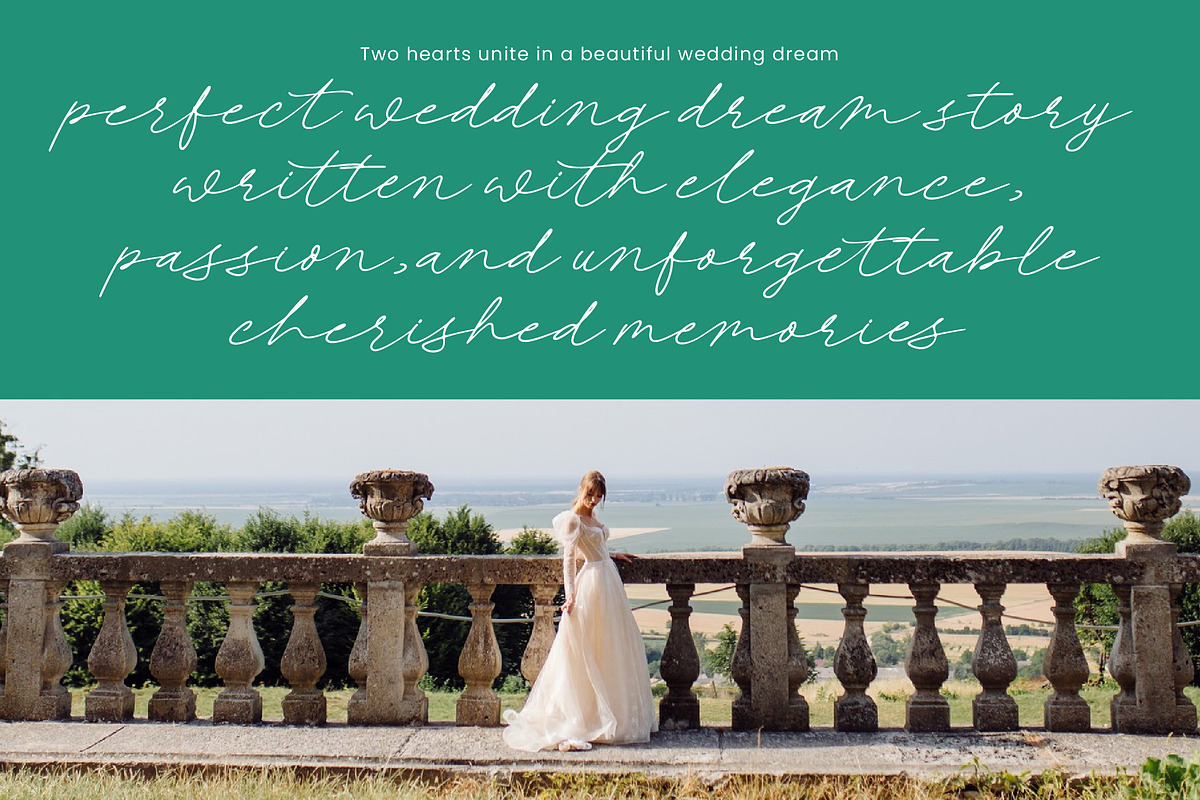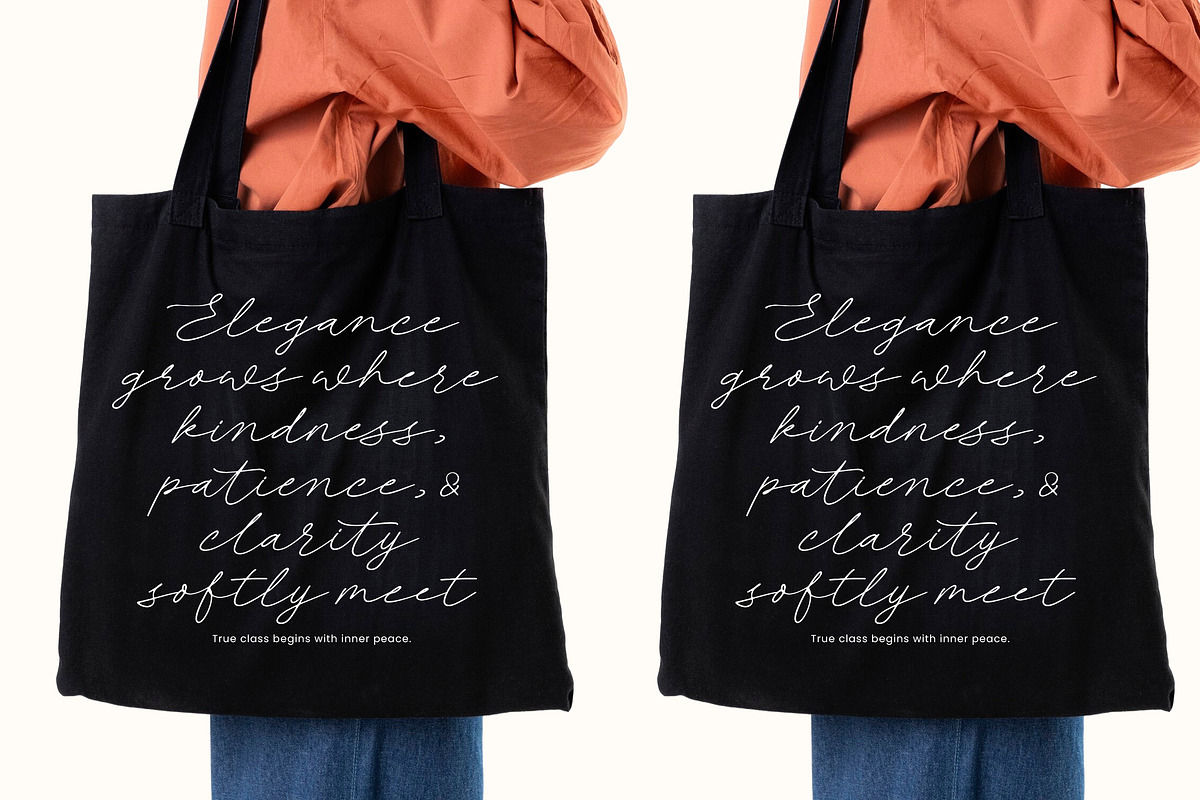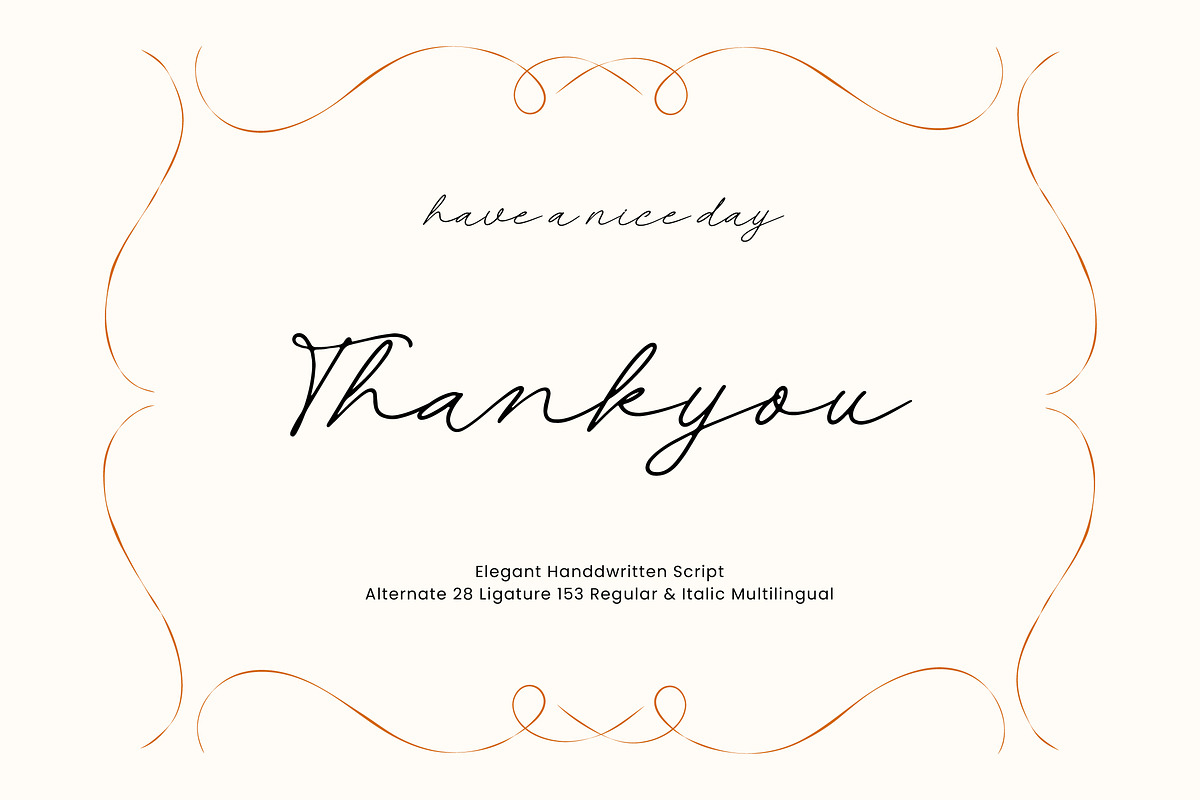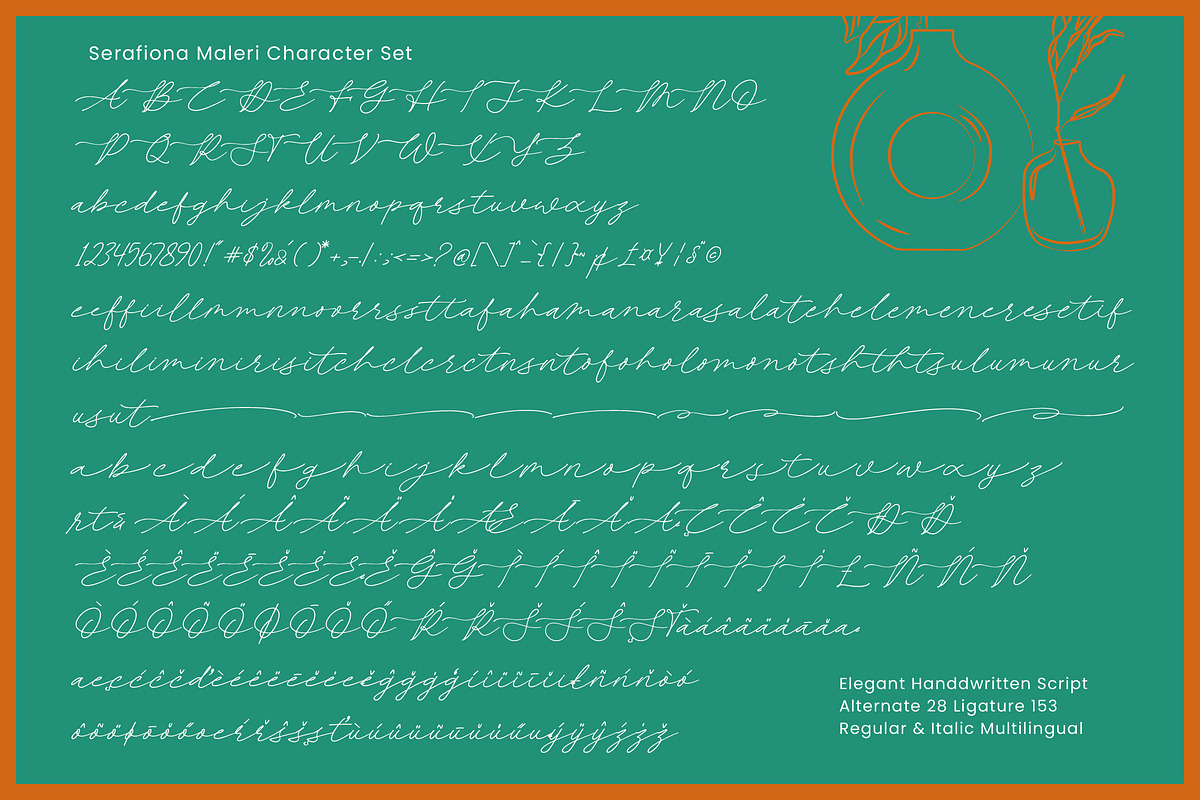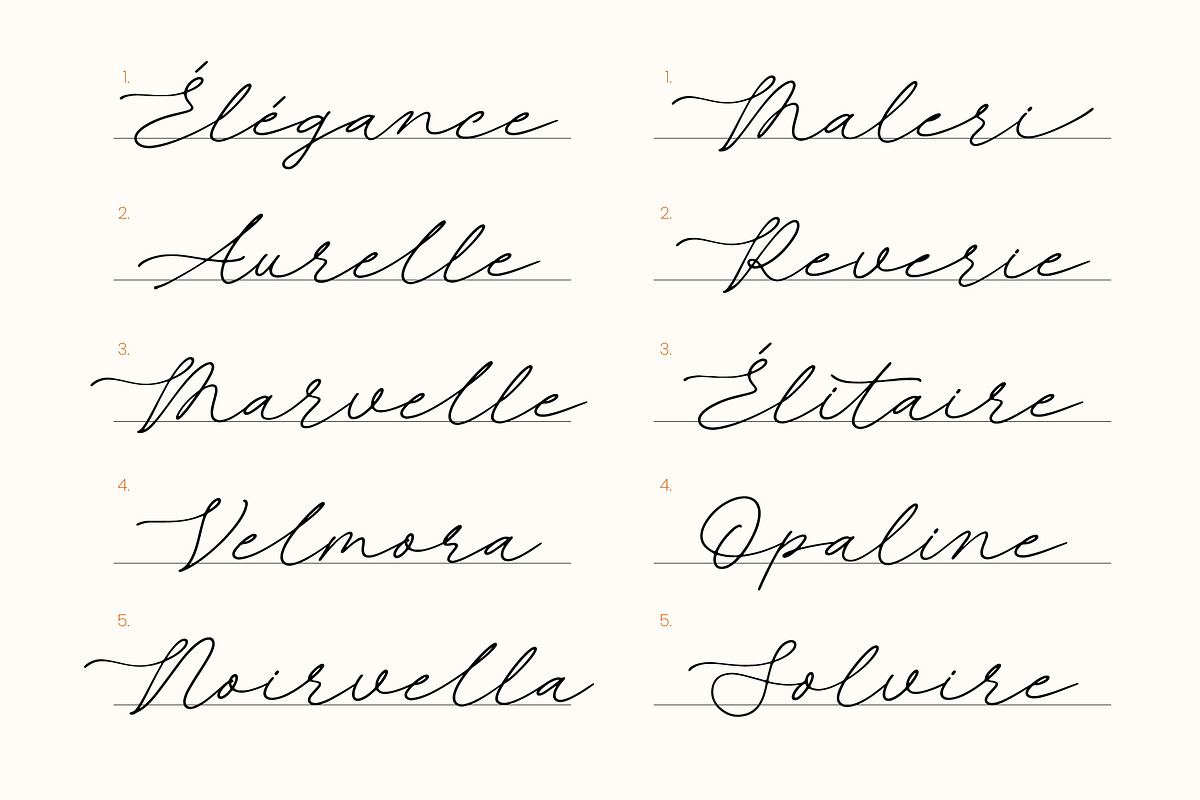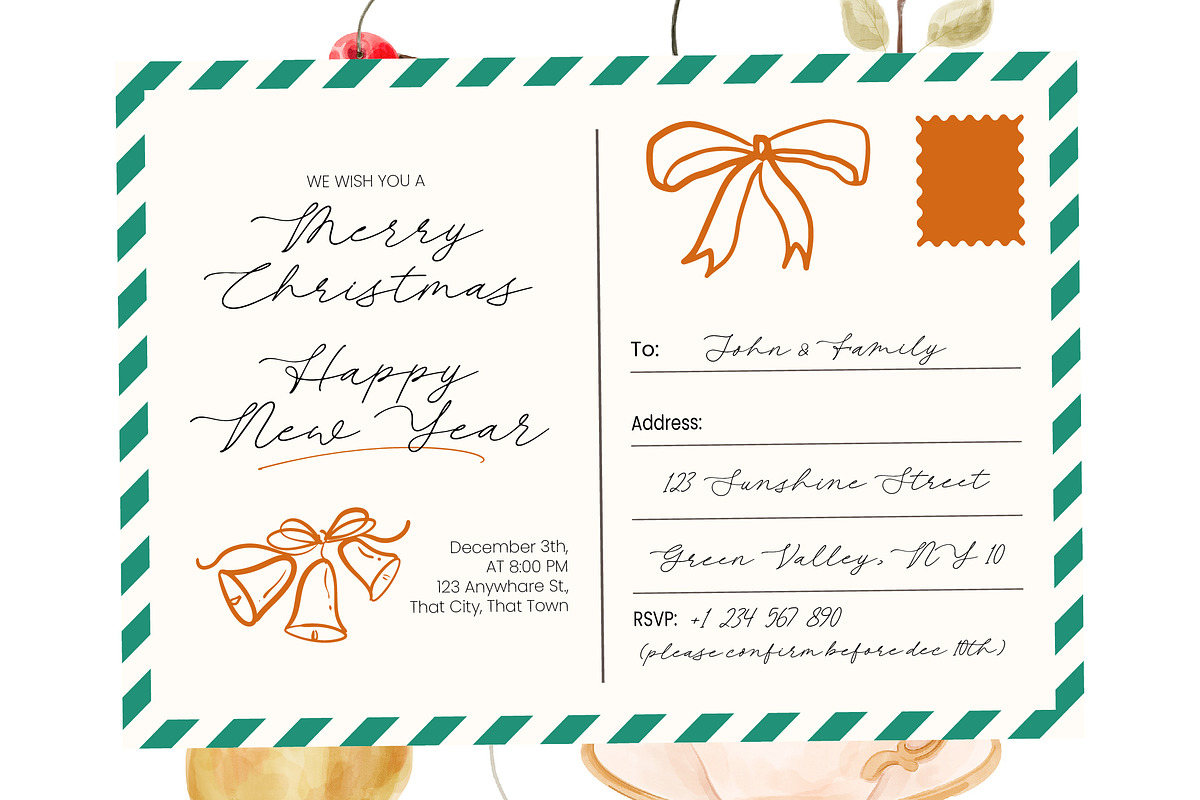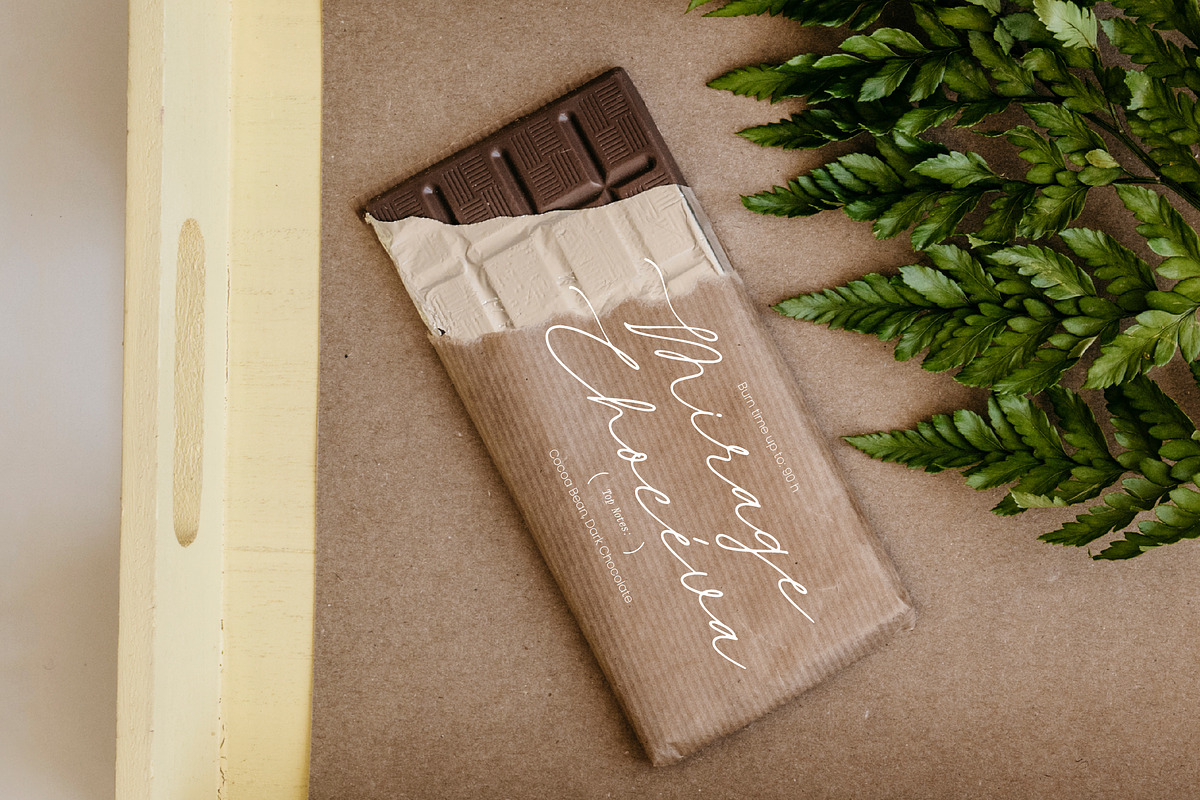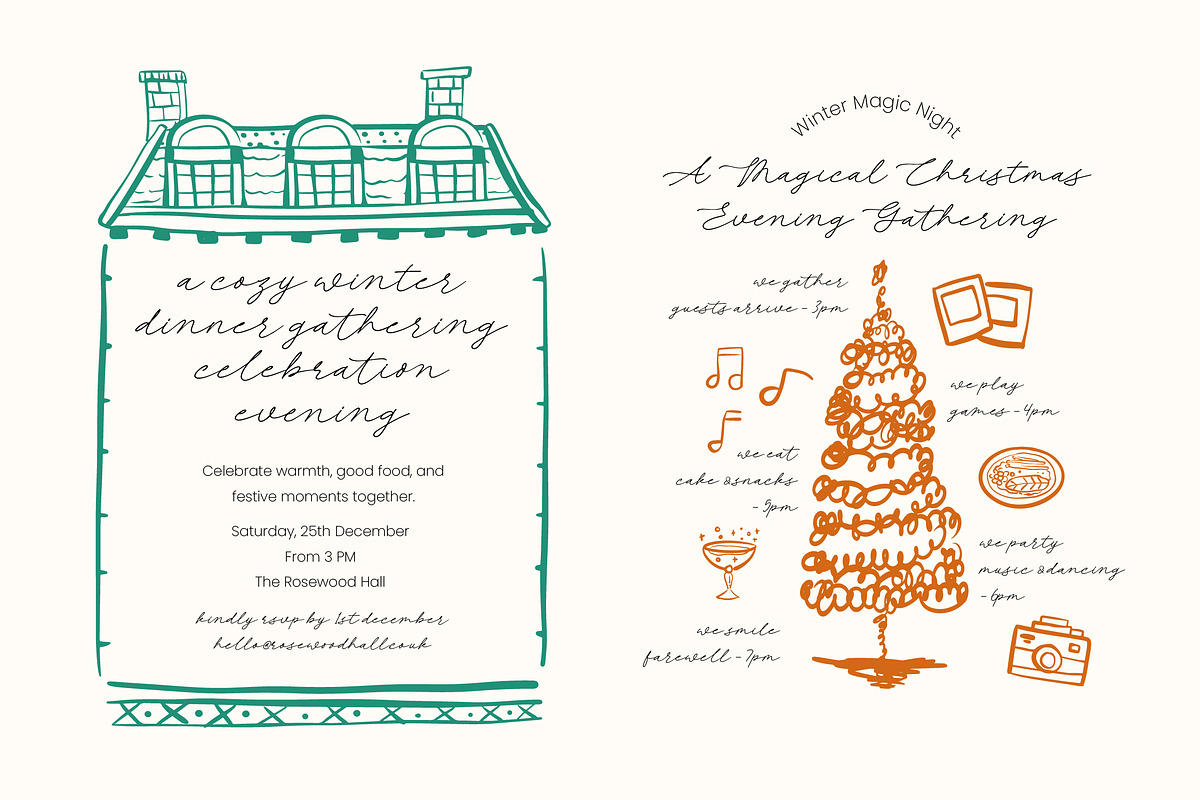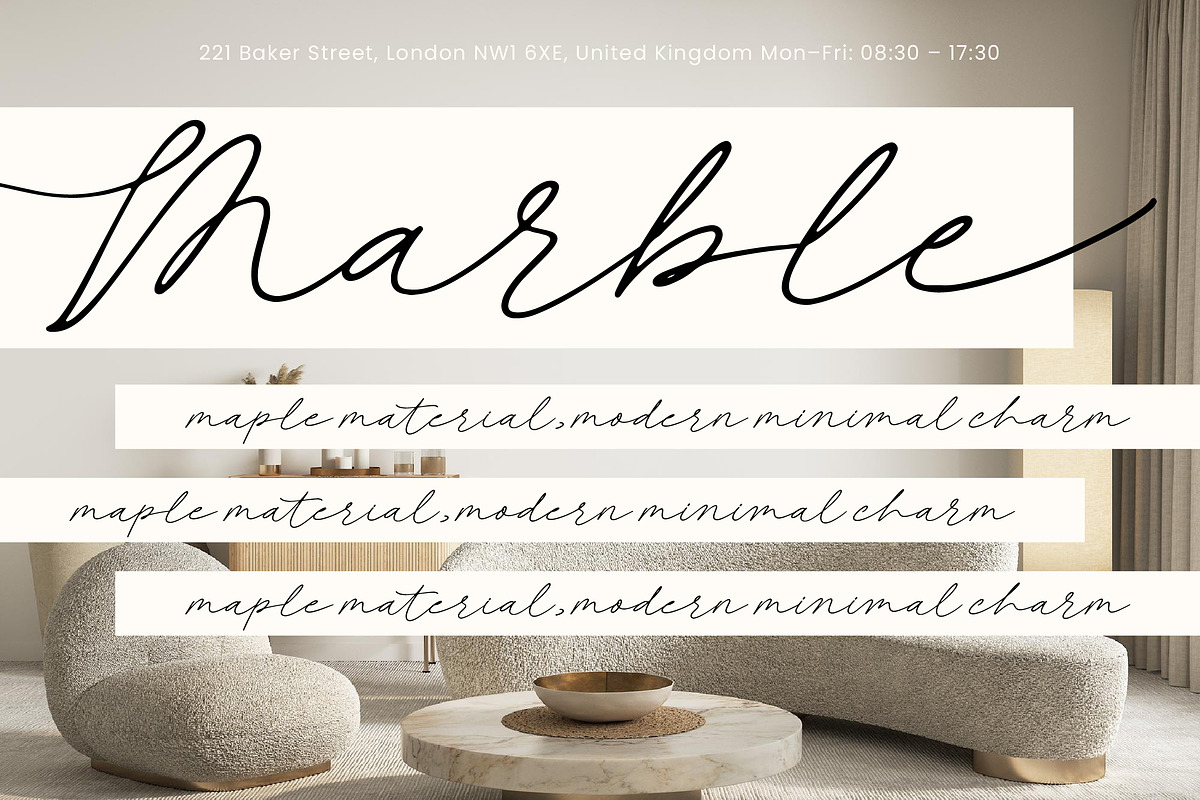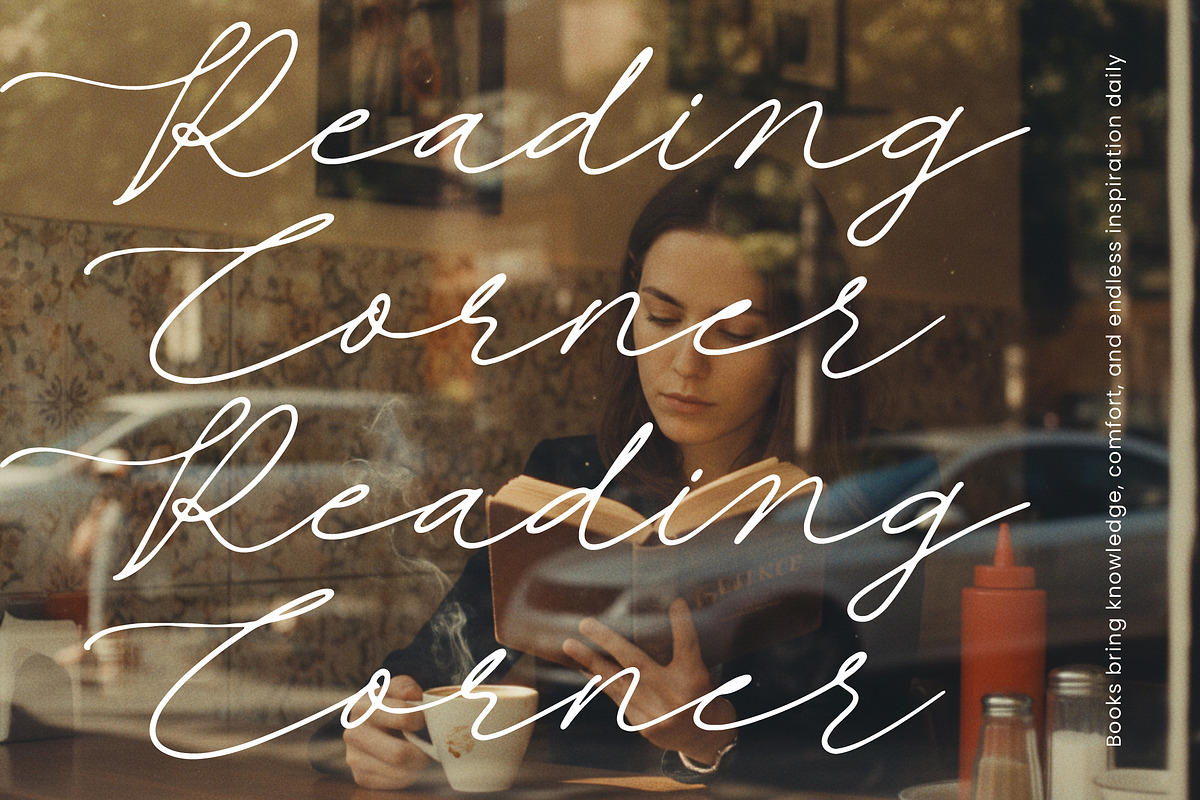
Serafiona Maleri Elegant Handwritten
Serafiona Maleri - Elegant Handwritten Script , Elevate your design aesthetic with the fluid grace of Serafiona Maleri , a typeface designed to infuse every project with timeless sophistication and artistic flair. This monolinear script captures the essence of premium hand-lettering, offering a refined silhouette that feels both personal and professionally polished. Its delicate strokes and graceful curves create a rhythmic flow that is ideal for designers seeking to add a touch of exclusivity and feminine elegance to their creative portfolio.
Expand your creative horizons and reach a wider audience without sacrificing aesthetic consistency. With its extensive multilingual support, Serafiona Maleri - Elegant Handwritten Script adapts seamlessly across global markets, making it incredibly versatile for international projects. This global compatibility ensures that your brand message remains cohesive and visually striking across various territories, providing a reliable solution for modern, worldwide communication and luxury marketing.
Unlock a world of customization possibilities through a comprehensive set of OpenType features that enhance every single word. Featuring 28 stylistic alternates and 153 unique ligatures, Serafiona Maleri - Elegant Handwritten Script allows for unparalleled creative flexibility and distinctive character. Whether you utilize the regular or italic version, the font provides the essential tools to craft tailor-made typography that resonates deeply with high-end audiences and discerning clients.
Transform your visual storytelling with a font that is perfect for luxury branding, premium packaging, and high-fashion editorial design. Serafiona Maleri - Elegant Handwritten Script is the ultimate choice for wedding invitations, signature logos, and boutique social media assets where sophistication is paramount. By choosing this versatile script, you ensure that your collateral materials exude a high-contrast, bespoke quality that captures attention and effectively drives brand loyalty.